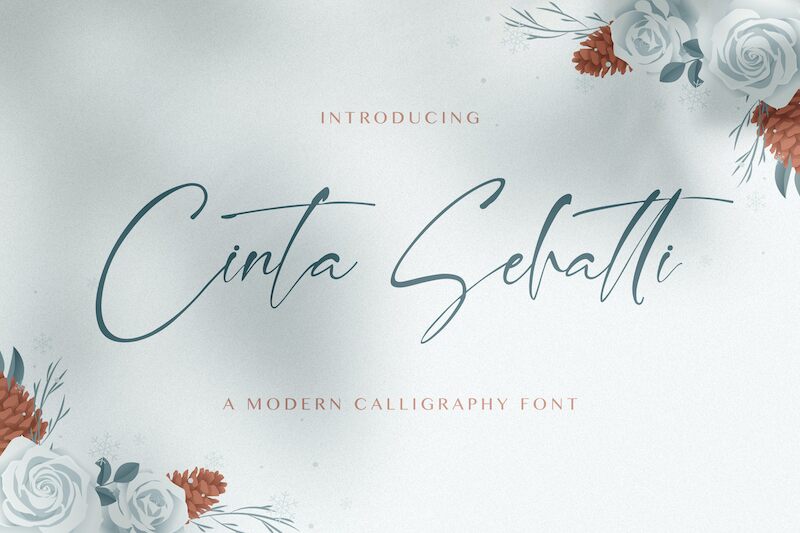
CINTA SEHATTI
Cinta Sehatti is a modern calligraphy font designed by StringLabs Creative Studio. Its light weight gives it a delicate and elegant appearance, perfect for projects such as wedding invitations, greeting cards, and branding materials for luxury brands. This font typeface is versatile enough to suit various design styles, from classic to contemporary. With its flowing script and graceful curves, Cinta Sehatti will add a touch of sophistication to any project it's used in. Whether you're designing a logo or creating social media graphics, this font is sure to make a lasting impression on your audience.